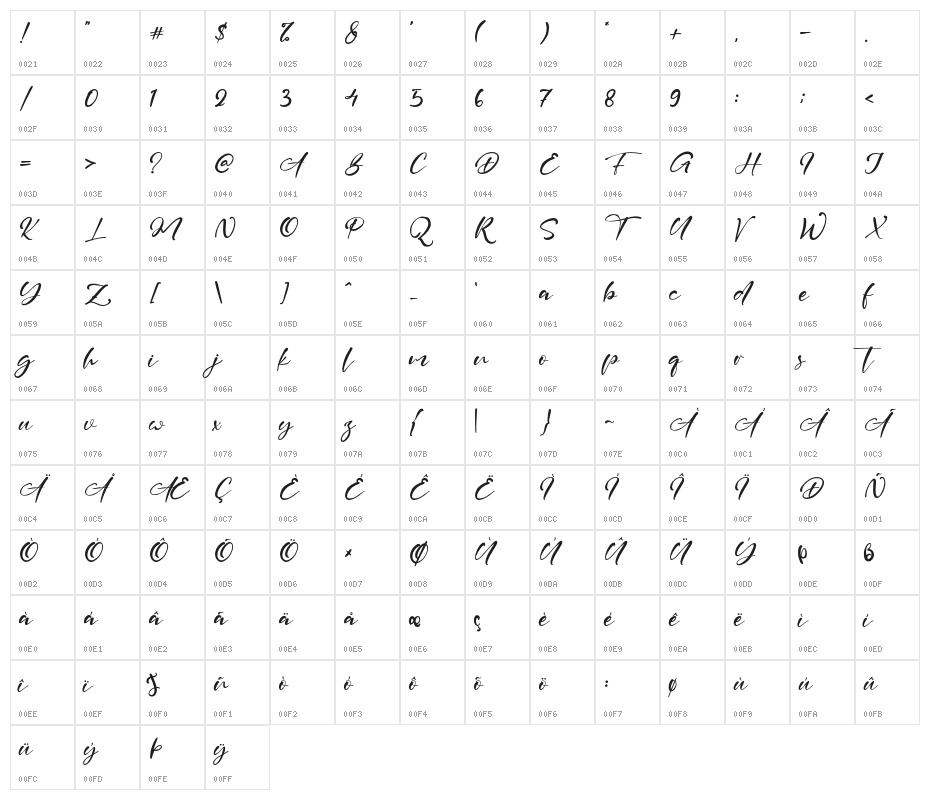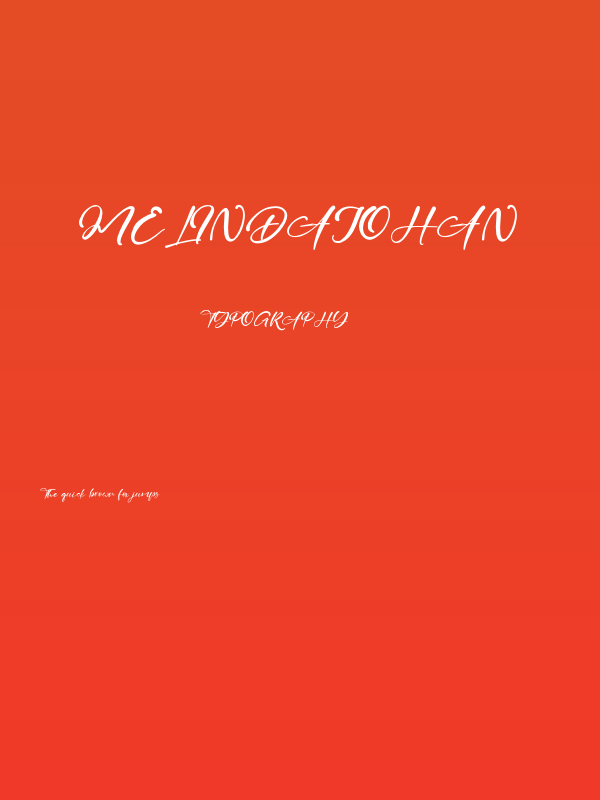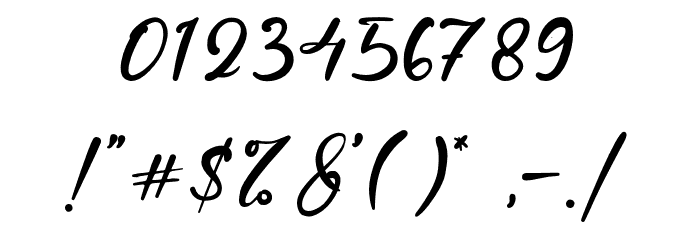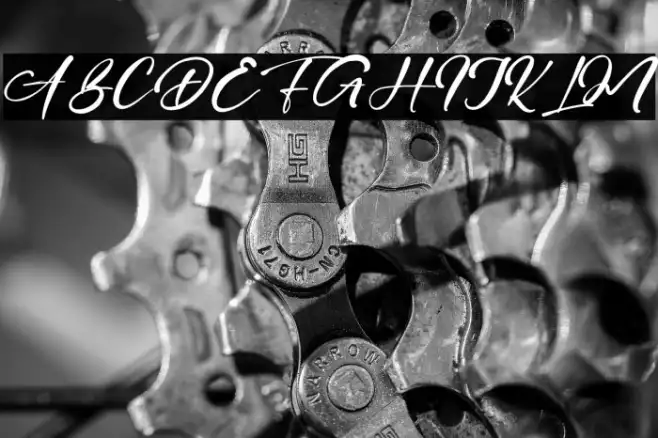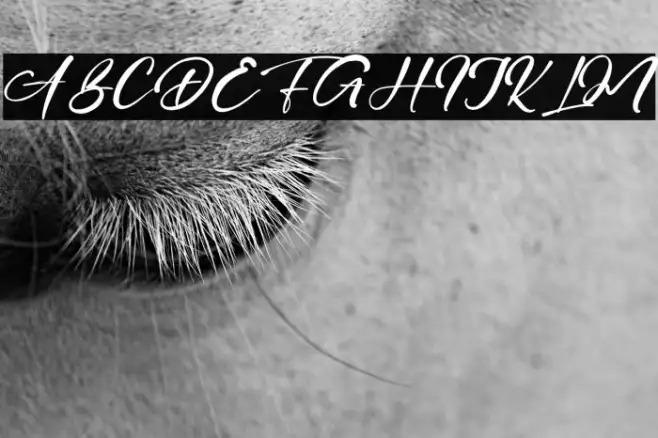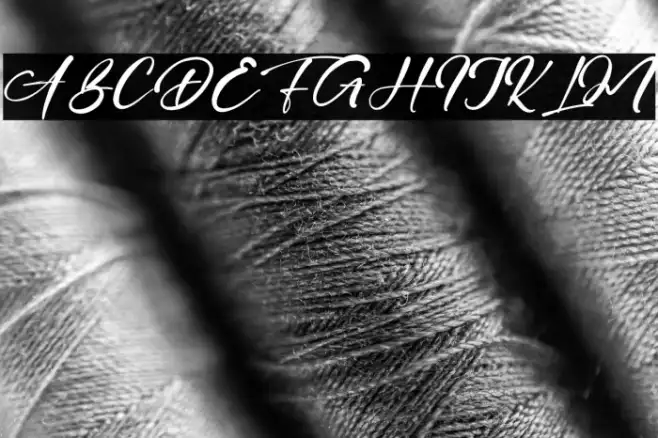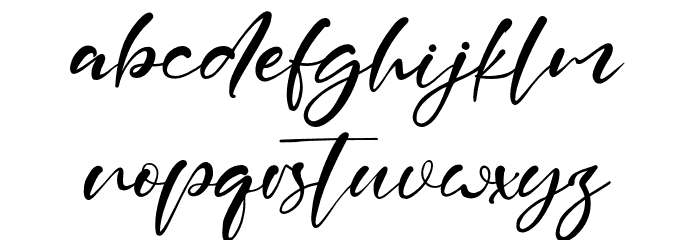
MelindaJohan Font
MelindaJohan Description
This elegant script font features a flowing, cursive style with a modern touch. The characters are interconnected, creating a seamless and fluid appearance. The uppercase letters are tall and graceful, while the lowercase letters maintain a consistent rhythm with gentle curves and loops. The numerals are stylish and complement the overall aesthetic. Special characters are designed to match the font's sophisticated look, making it suitable for a variety of creative applications. The font's smooth lines and balanced proportions give it a refined and polished feel, ideal for projects that require a touch of elegance and sophistication.
| Proposed Projects | Wedding invitations, branding, logos, greeting cards, and elegant packaging. |